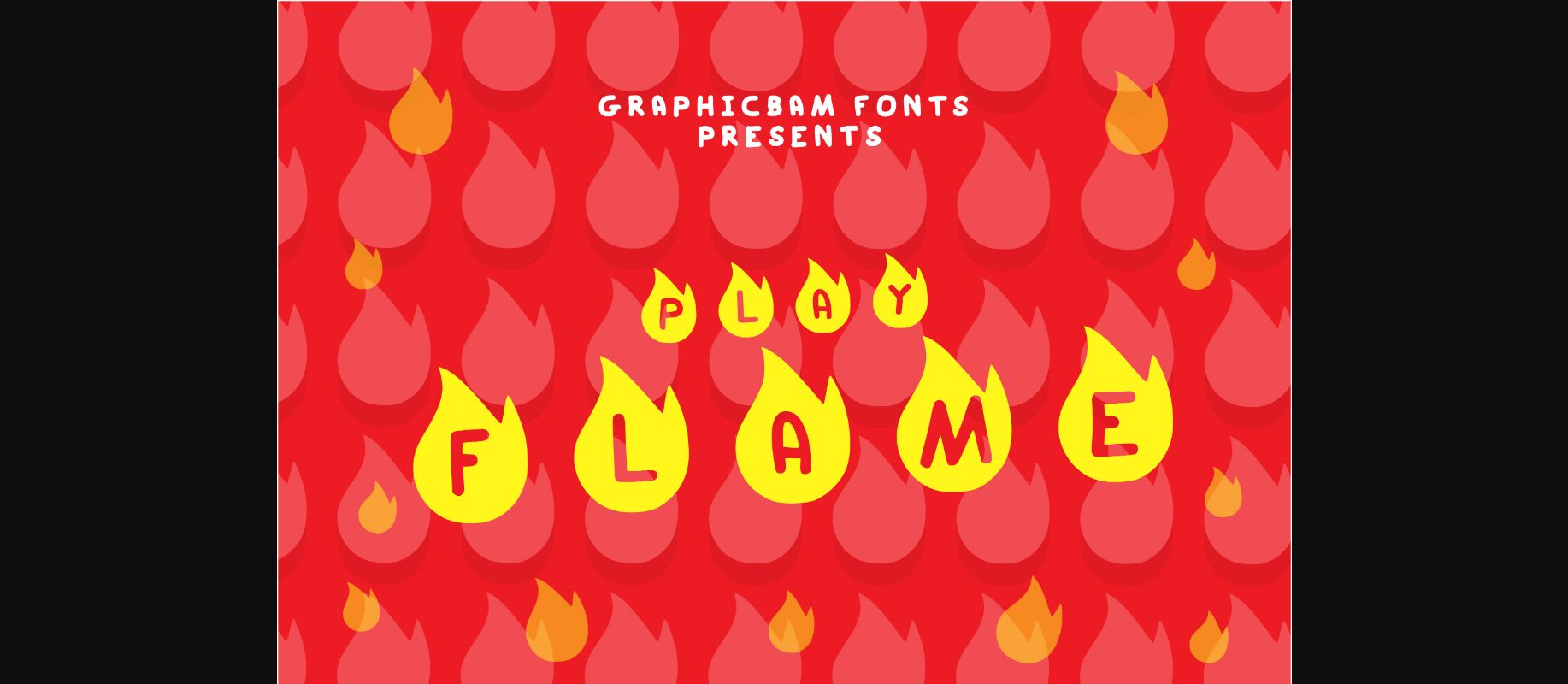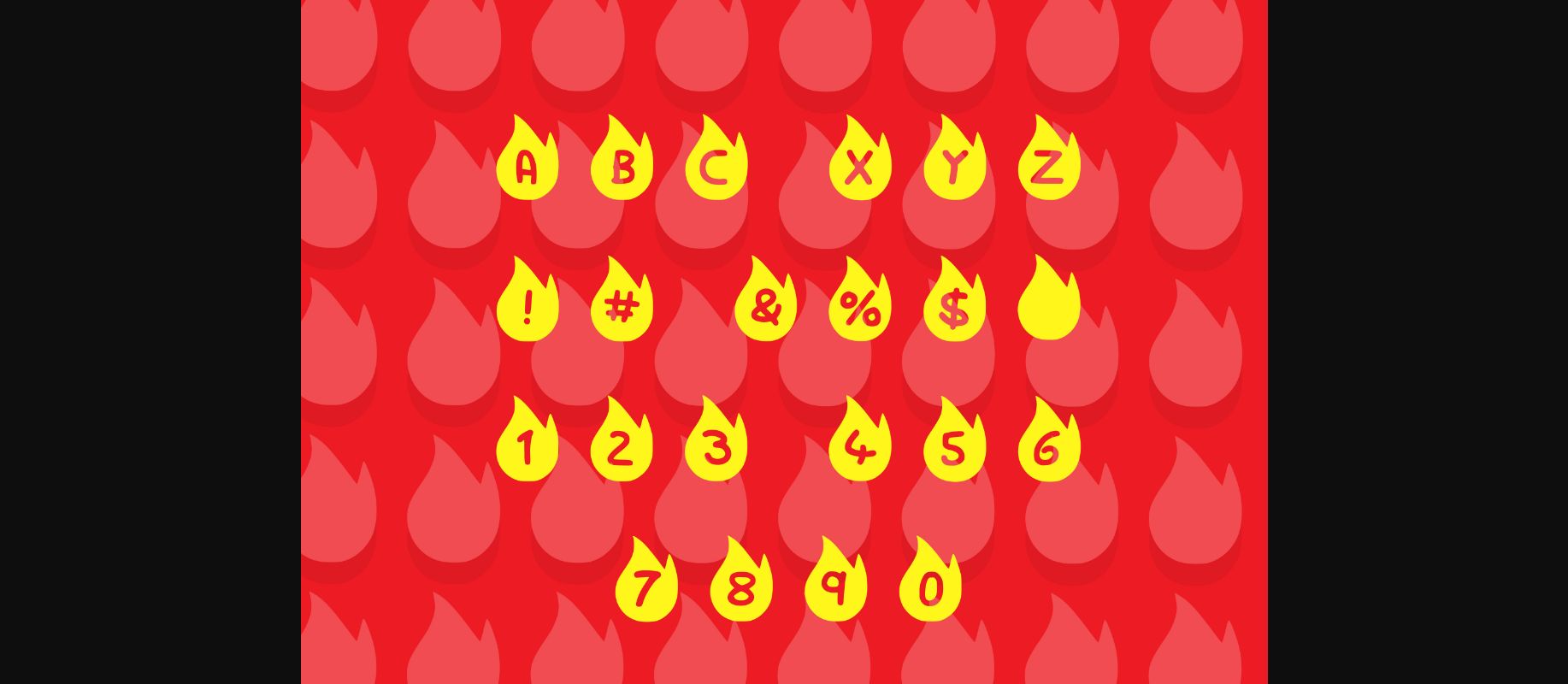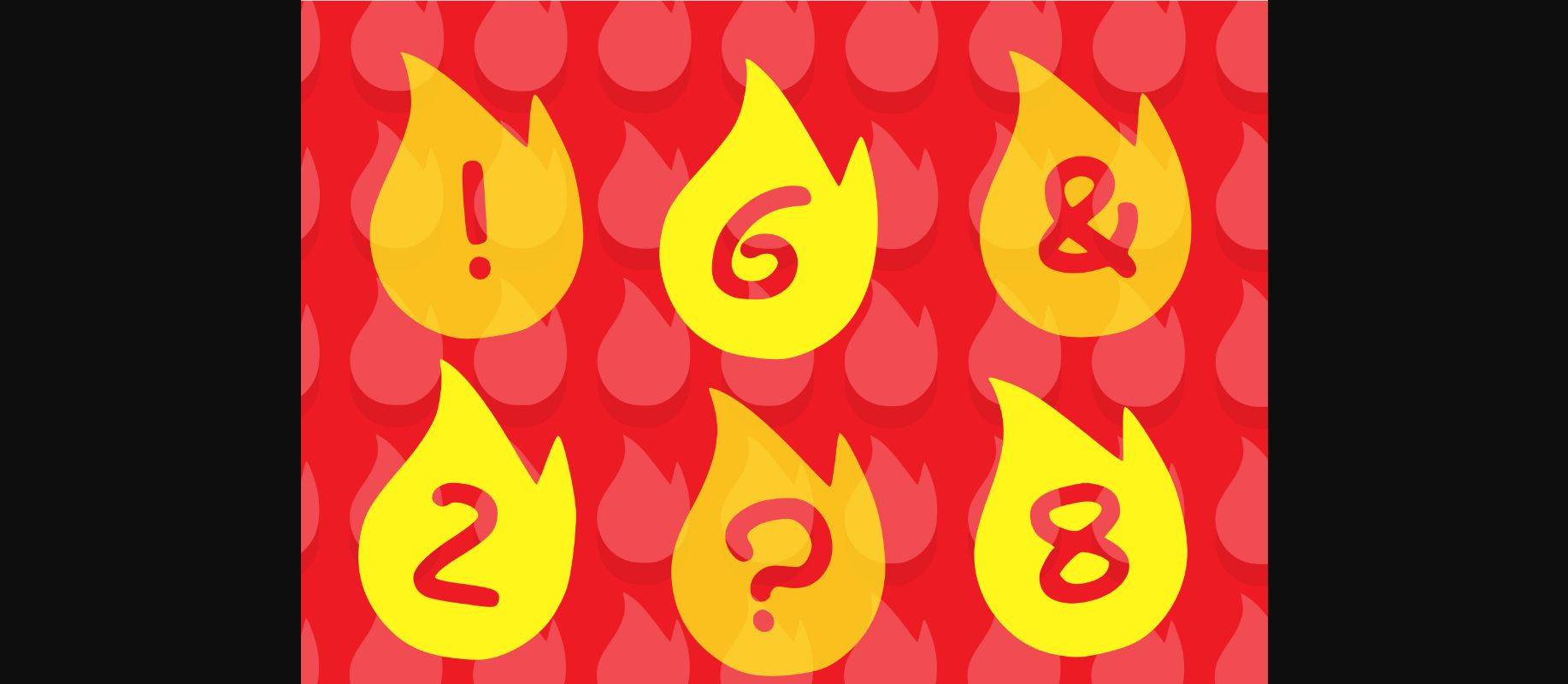
Add fierce typography to your creative designs by using this unique decorative font! It contains characters in flames that will set your creative projects on a fiery success path.